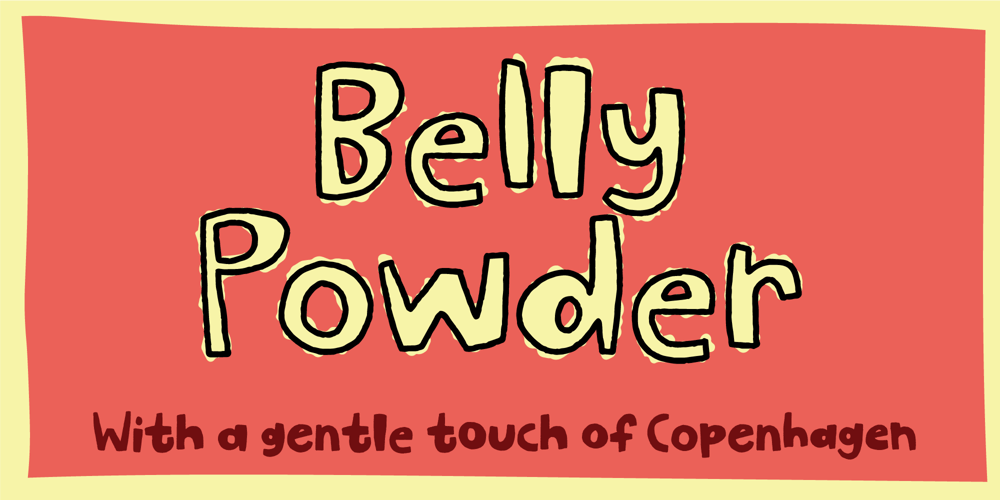
Belly Powder Font Family was designed by Jakob Fischer and published by PizzaDude.dk. Belly Powder contains 4 styles and family package options. It’s quirky, off the grid, handmade and only up to one thing: FUN! Well, perhaps also party, dancing and eating some delicious dessert and enjoying other little things in life! :)Belly Powder is my playful sans serif font with an organic and vibrant look – could be quite useful for packaging, products for kids, invitations or maybe a cover for a cookbook / kids book? I’ll le you be the judge!I have added 3 slightly different versions of each lowercase letter, and these automatically changes as you type! ๐